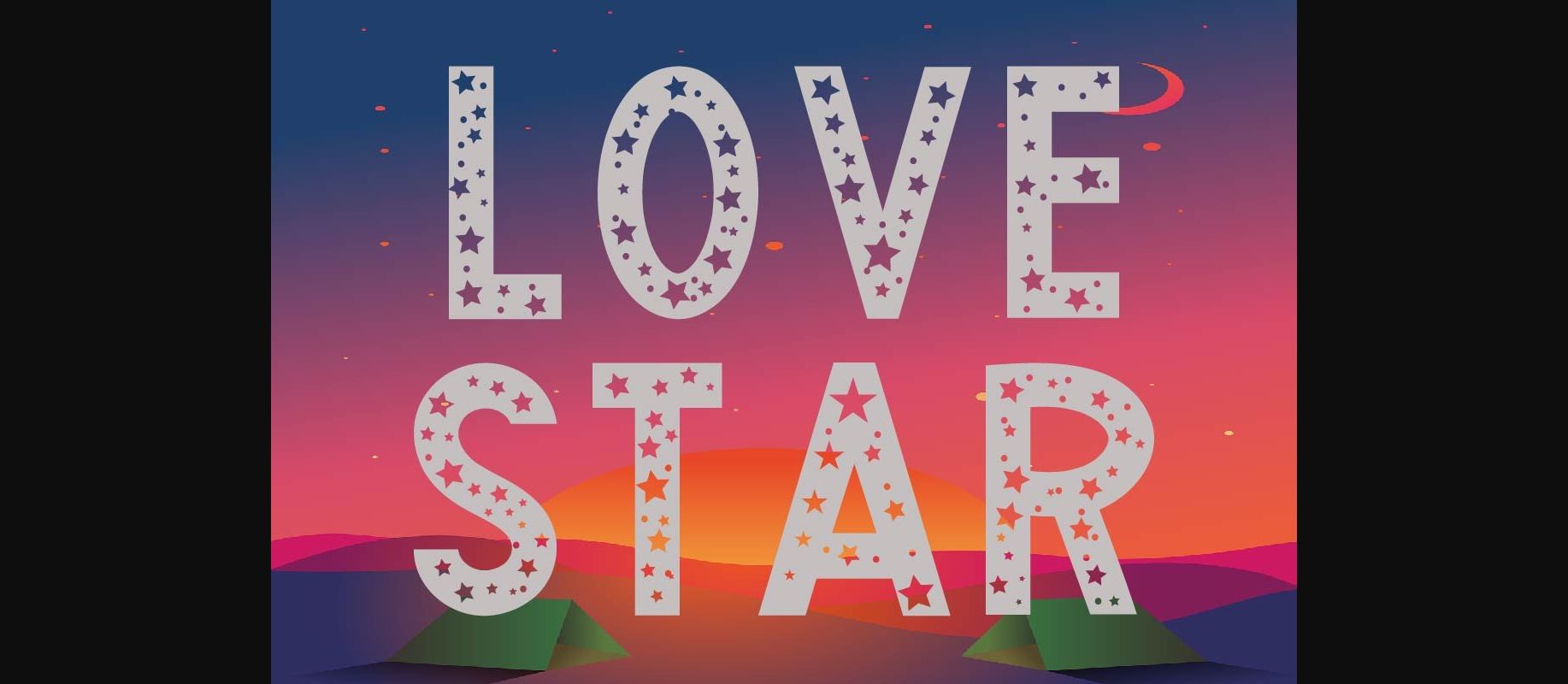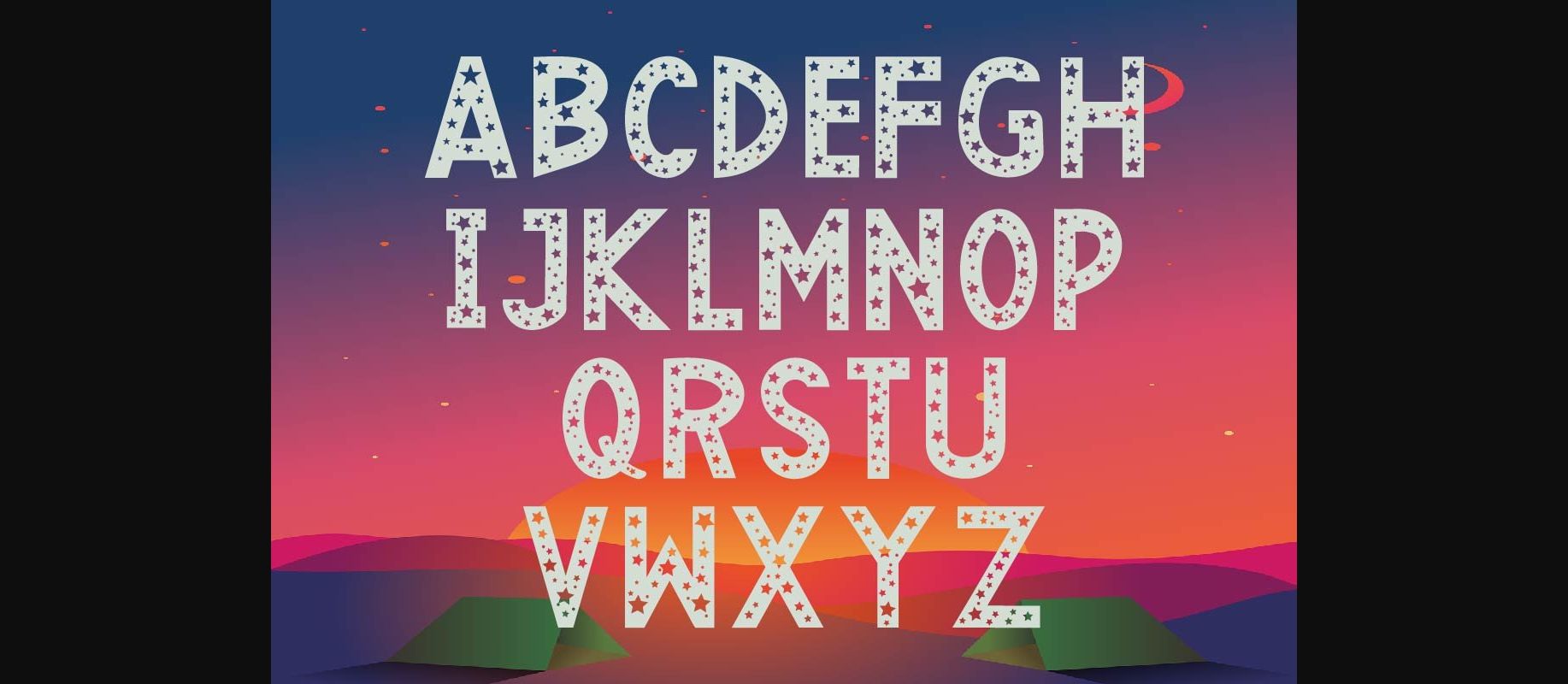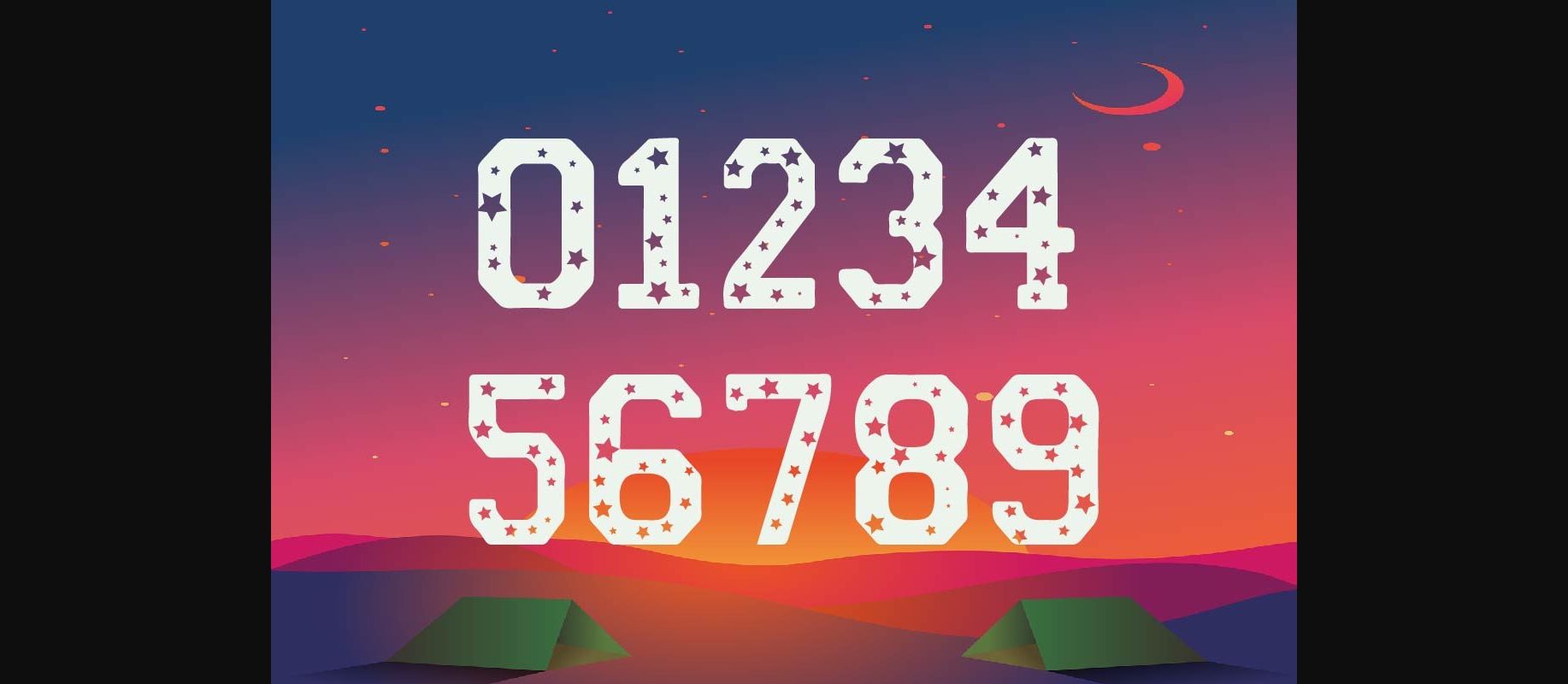
Love Stars Font
About Love Stars Font
Love Stars is a cute, fun, and friendly decorative font. It looks stunning on wedding invitations, thank you cards, quotes, greeting cards, logos, business cards, and every other design which needs a handwritten touch.